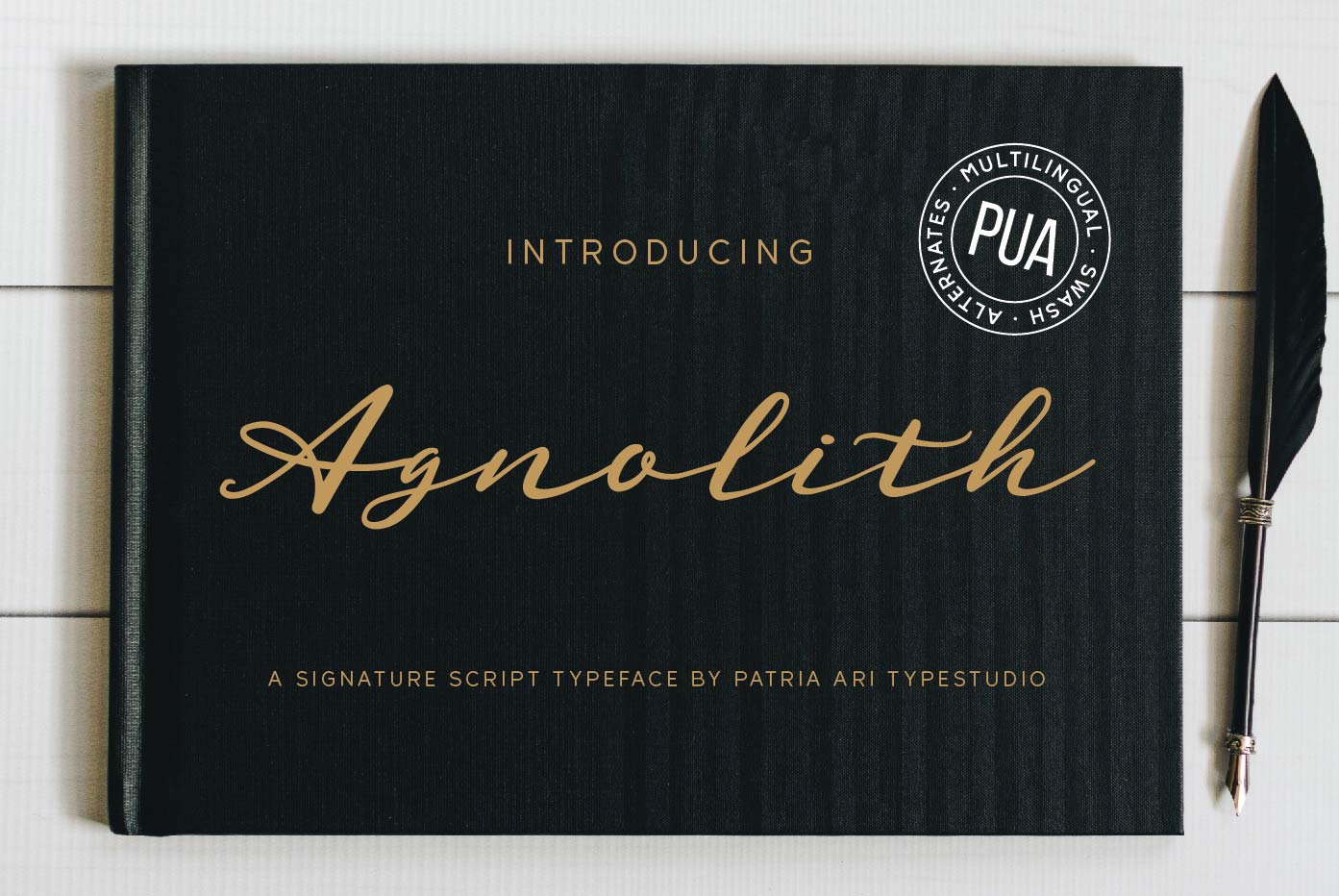
Agnolith - Signature Script Fonts
Agnolith is a elegant handwritten signature script typeface with luxurious cursive alternative glyphs.
Agnolith is perfect for branding projects, logo, wedding invitation, social media posts, advertisements, product packaging, product designs, label, photography, watermark, invitation, stationery and any projects that need handwriting taste.
Fonts featured :
Uppercase Lowercase Numbers Punctuation & symbols Accented characters Alternate glyphs